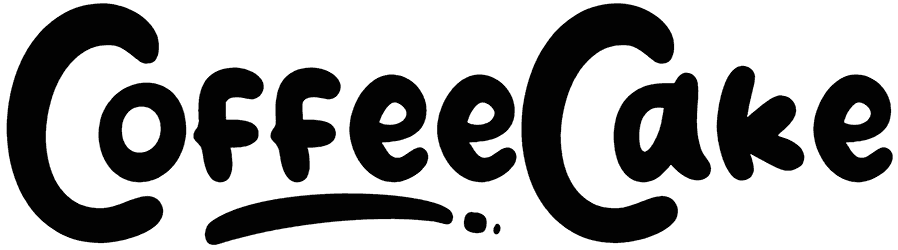
CoffeCake Font
You get to reach a sweet and friendly impact with cute, casual lettering, and this coffee font can make it happen. CoffeCake font can give an enchanting, soft visual to your words, and with an almost full cover of characters, you have the freedom to use it for varied ideas. Create a bakery logo or any creative design you want, and amaze your visitors.